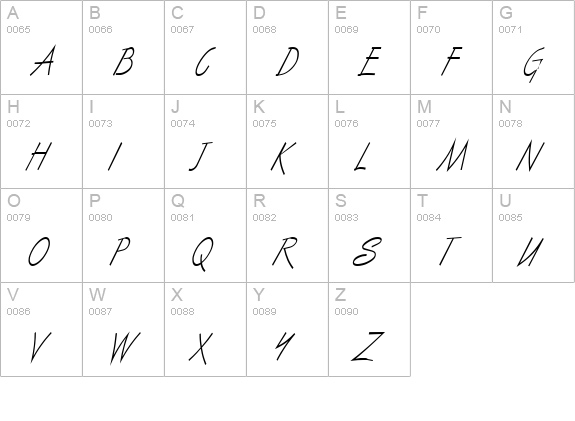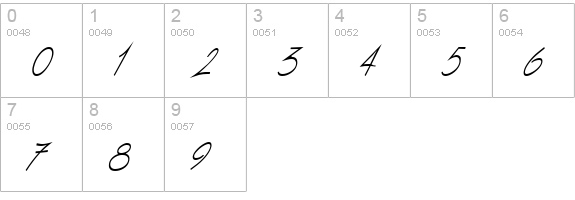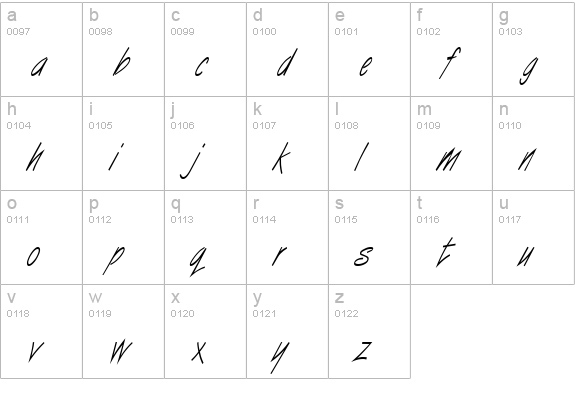
Vizier Condensed Italic Font Details
Vizier Condensed Italic is a distinctive, condensed-width, italic variant in the Vizier typeface family \xE2\x80\x94 well suited to design and typography projects.
Vizier Condensed Italic is a sleek and sophisticated font that exudes elegance and modernity. Its condensed form captures attention with its slim and streamlined appearance, making it perfect for adding a touch of finesse to any design project. The italicized style of Vizier Condensed adds a dynamic and energetic flair, giving your text a sense of movement and fluidity. Whether you're creating a striking headline or designing a sleek logo, this font will elevate your design to new heights. The versatility of Vizier Condensed Italic is unparalleled. It can be used in various design contexts, from fashion and beauty to technology and business. Its clean and legible letterforms ensure readability while maintaining a sense of sophistication. And the best part? Vizier Condensed Italic is freely available to download at FontsMarket.com. This means that you can enhance your designs with this stunning font without any cost. It's a font that not only looks great but also fits within any budget. So why wait? Download Vizier Condensed Italic today and experience the power of this font for yourself. Whether you're a professional designer or a DIY enthusiast, this font will surely become your go-to choice for creating visually stunning and impactful designs.